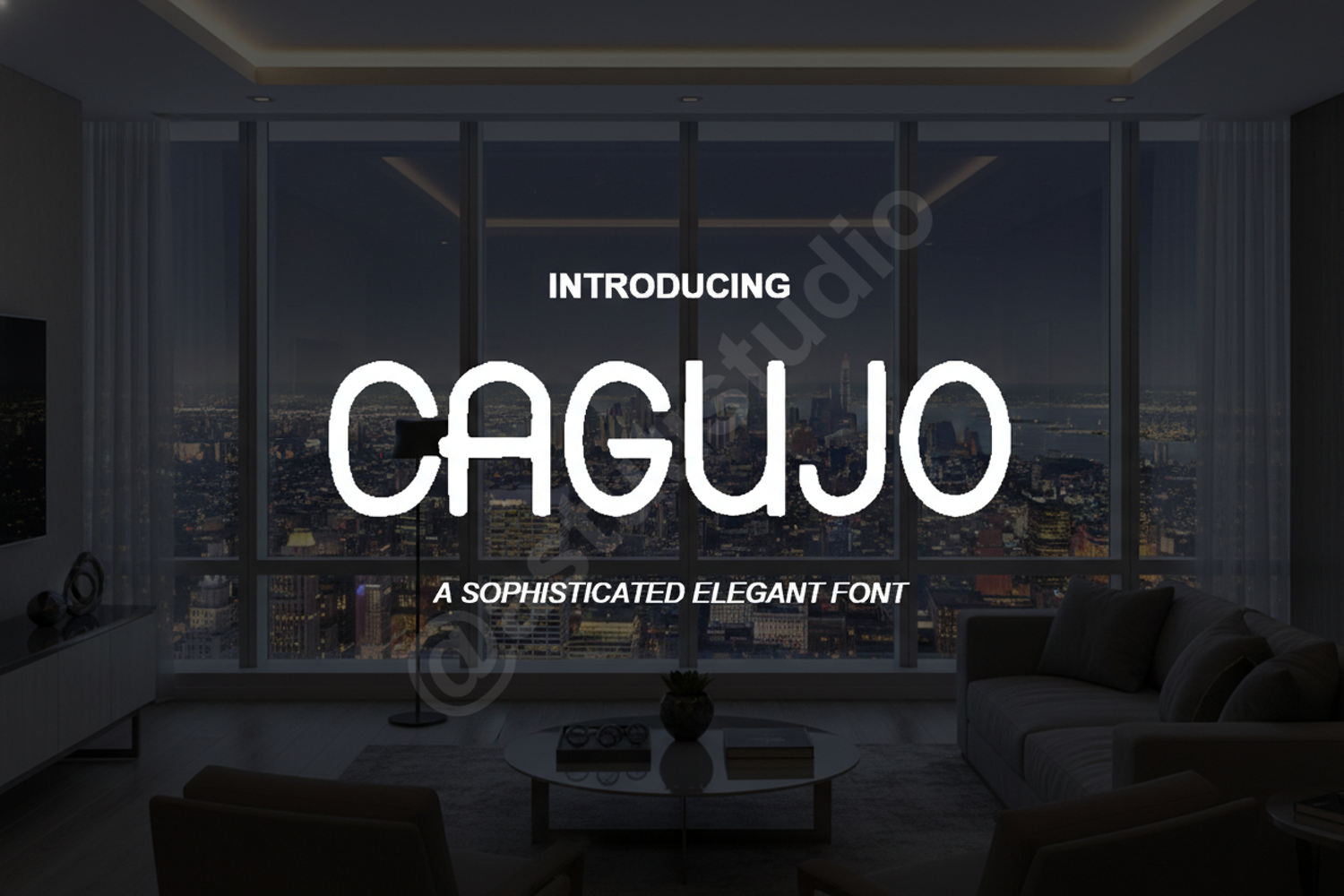
Cagujo - Modern Luxury Serif Font
Cagujo
Elevate your design projects with Cagujo, a premium serif font that seamlessly blends classic elegance with modern sophistication. Meticulously crafted for designers who demand excellence, Cagujo offers a timeless aesthetic that commands attention while maintaining exceptional legibility across all platforms.
- Luxury Branding and Identity Design
- High-end Editorial and Magazine Layouts
- Elegant Wedding Invitations and Event Stationery
- Premium Product Packaging and Labeling
- Professional Social Media Graphics and Digital Advertising